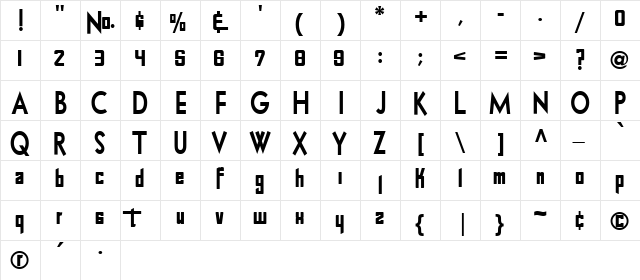
Chatty Cocktails Regular
Design Context for Chatty Cocktails Typeface
Chatty Cocktails offers clean, dependable letterforms without strong stylistic allegiance, making it a practical choice for designers who need flexibility.